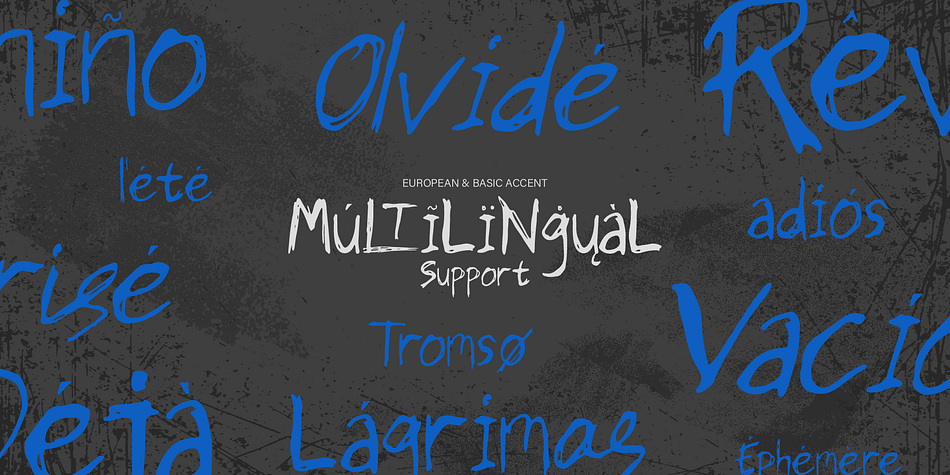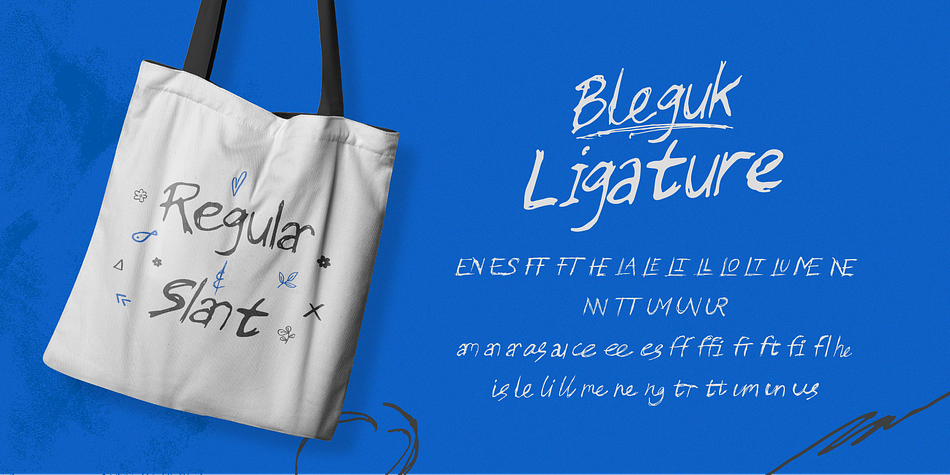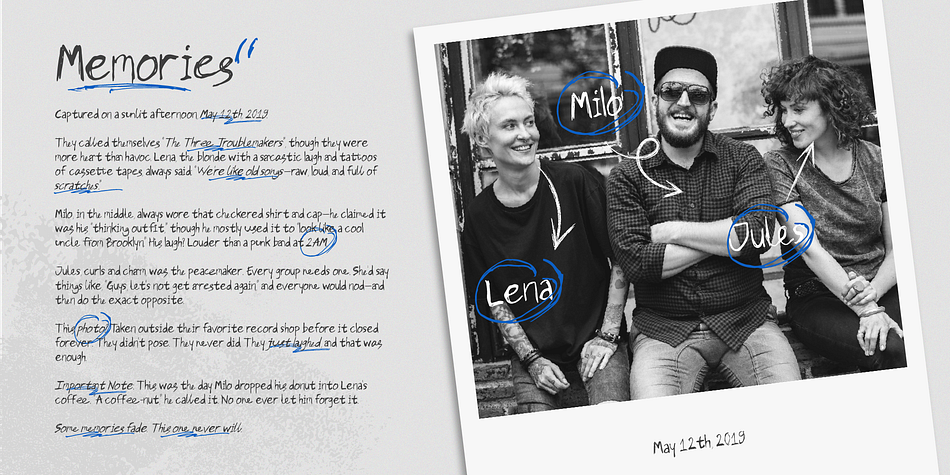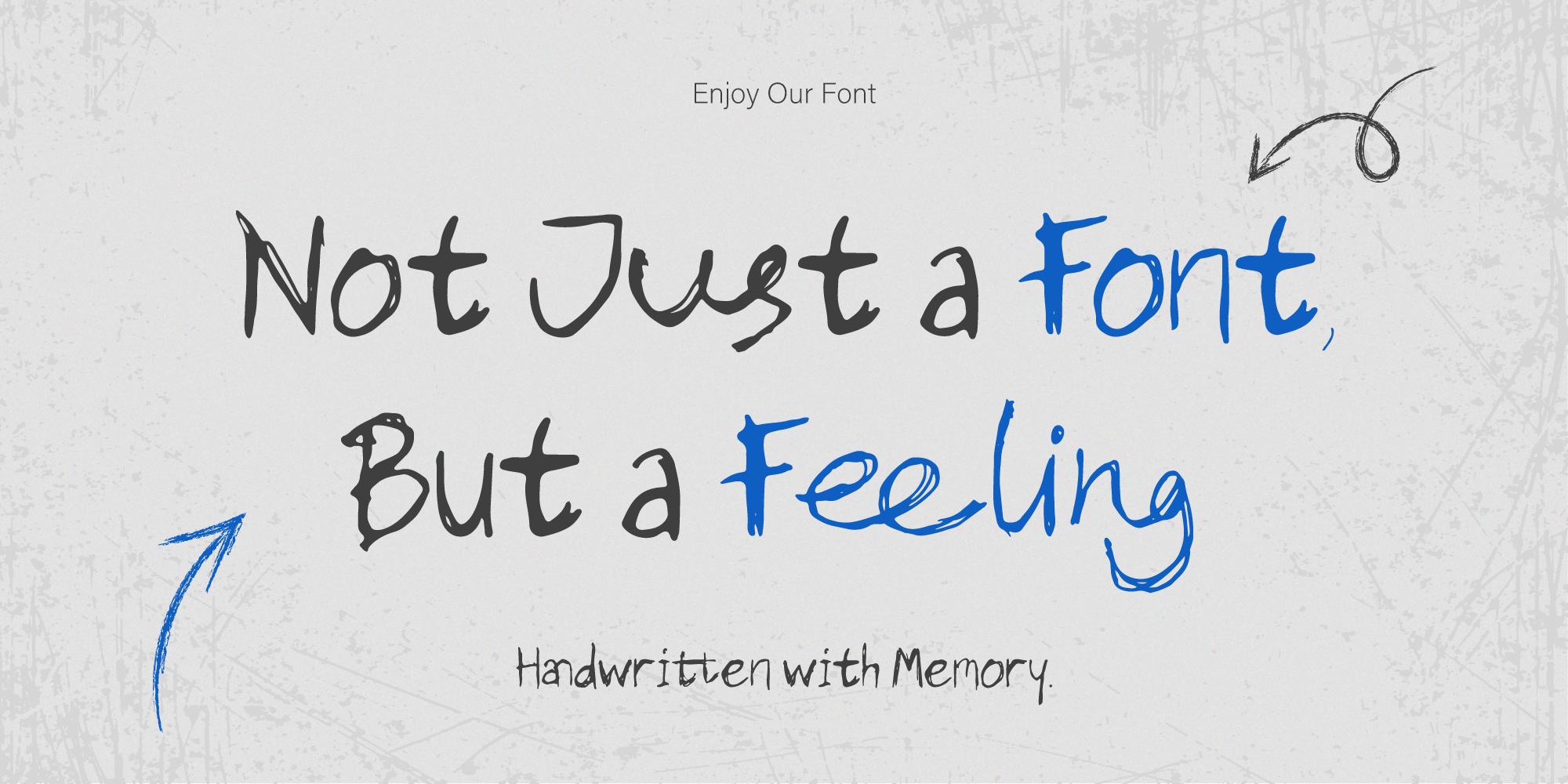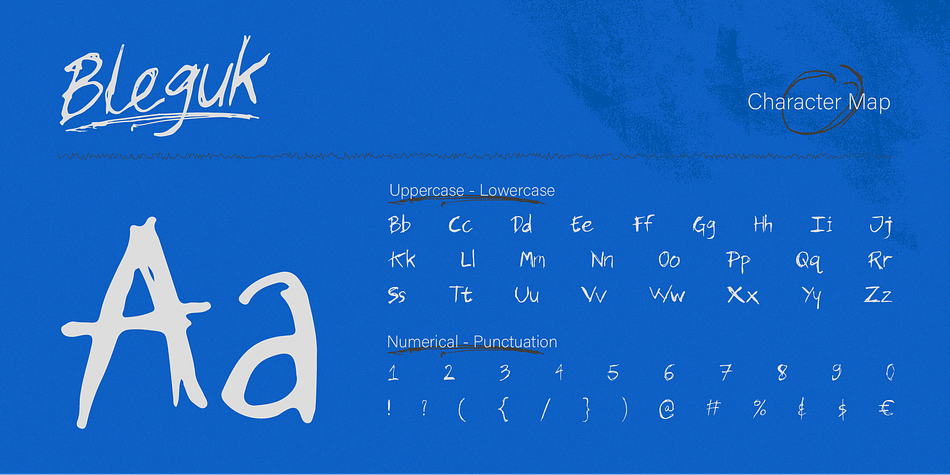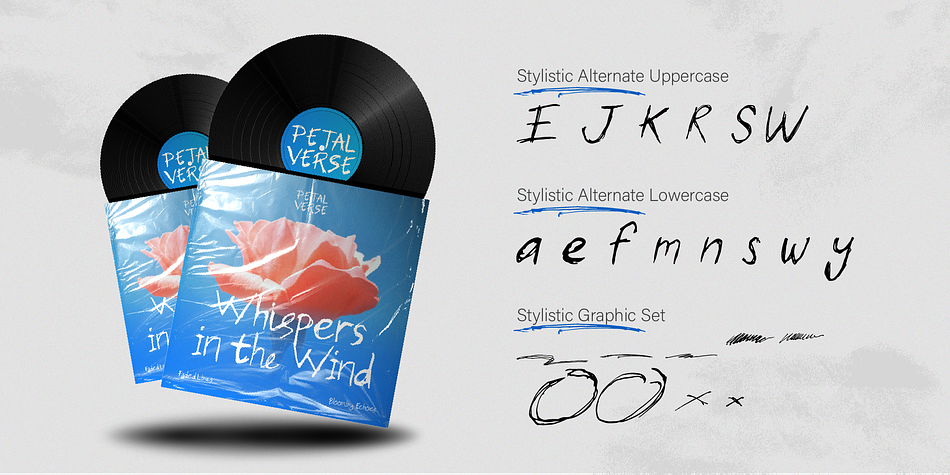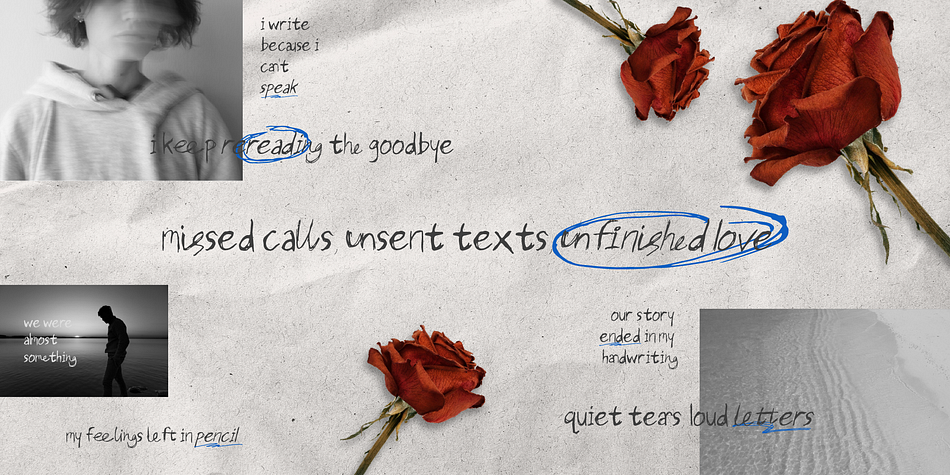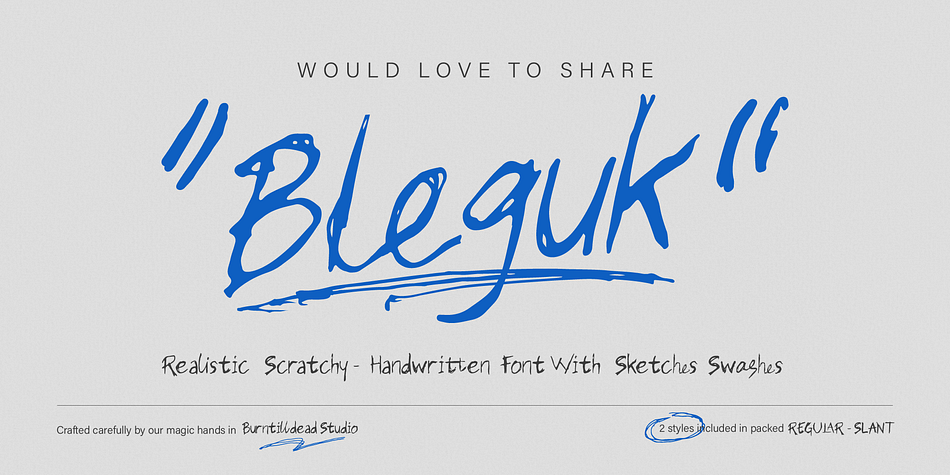
Bleguk
Designed by Eric Kurniawan, Bleguk is a hand drawn font family. This typeface has two styles and was published by Burntilldead.
Meet Bleguk, an artsy, chaotic handwritten font with a raw and sketchy vibe. This font has a strong and unique personality that stands out in any design. It’s loud, expressive, and full of character, like scribbles on a journal or messy sketches on a creative wall full of stories.
The scratchy texture gives it that real, handmade feel, like using a marker or pen on random paper. Bleguk comes in 2 styles: Regular and Slant, so you can mix things up depending on your vibe.
What makes it even more fun? Bleguk includes a sketches & swashes graphic set to boost the playful energy and support your design flow.
Perfect for indie/punk music posters, visual journaling, digital collages or scrapbooks, book covers, IG stories, or anything with a storytelling vibe.
- Alternates
- Stylistic Graphic Set